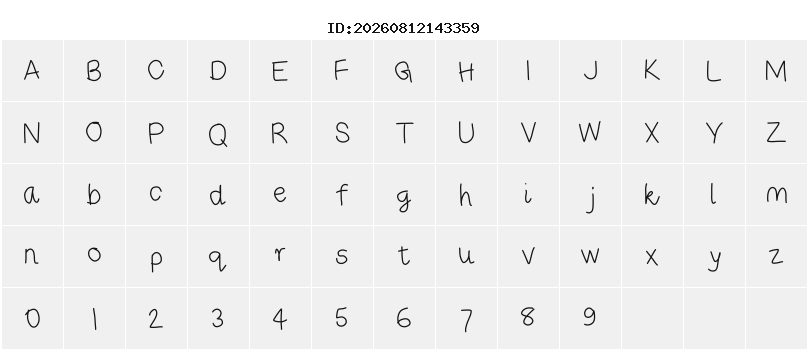
• Font Name: RiseStarHand
About RiseStarHand.ttf
RiseStarHand.ttf is a modern, elegant sans-serif font designed for ultimate readability and visual harmony. Perfect for branding, headlines, web design, and print materials.